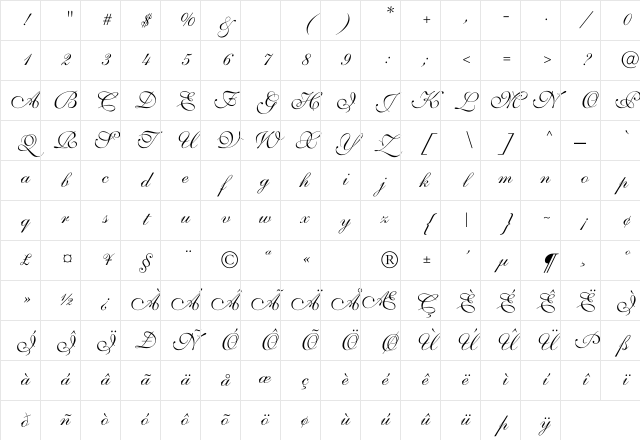
Shelley-VolanteScript Regular
Design Context for Shelley-VolanteScript
Shelley-VolanteScript flows with the natural rhythm of handwritten lettering, making it ideal for designs that call for warmth and personal expression.
Font Pairing: Combine Shelley-VolanteScript with a simple geometric sans for maximum contrast - the tension between flowing curves and clean structure is a classic typographic pairing.
Pro Tip: Use Shelley-VolanteScript for short runs of text - names, titles, or taglines. Extended body copy in script faces tires the eye quickly.